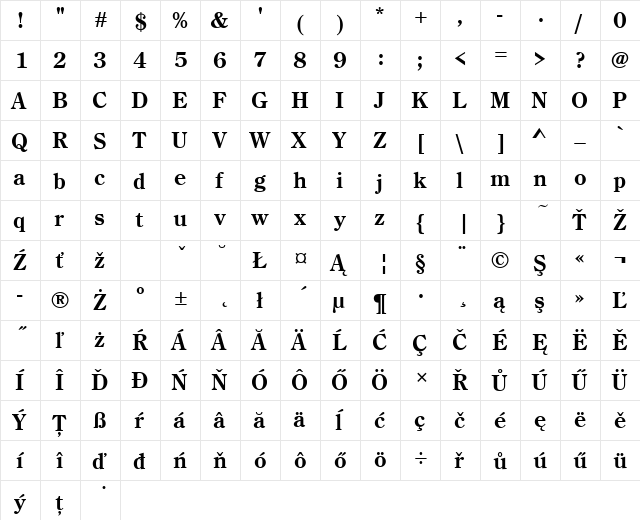
CenturyOldStyTEE Bold Font Preview
CenturyOldStyTEE Bold
CenturyOldStyTEE Bold Font Details
Design Context for CenturyOldStyTEE Typeface
CenturyOldStyTEE offers clean, dependable letterforms without strong stylistic allegiance, making it a practical choice for designers who need flexibility. The heavy weight commands attention and anchors typographic hierarchies.